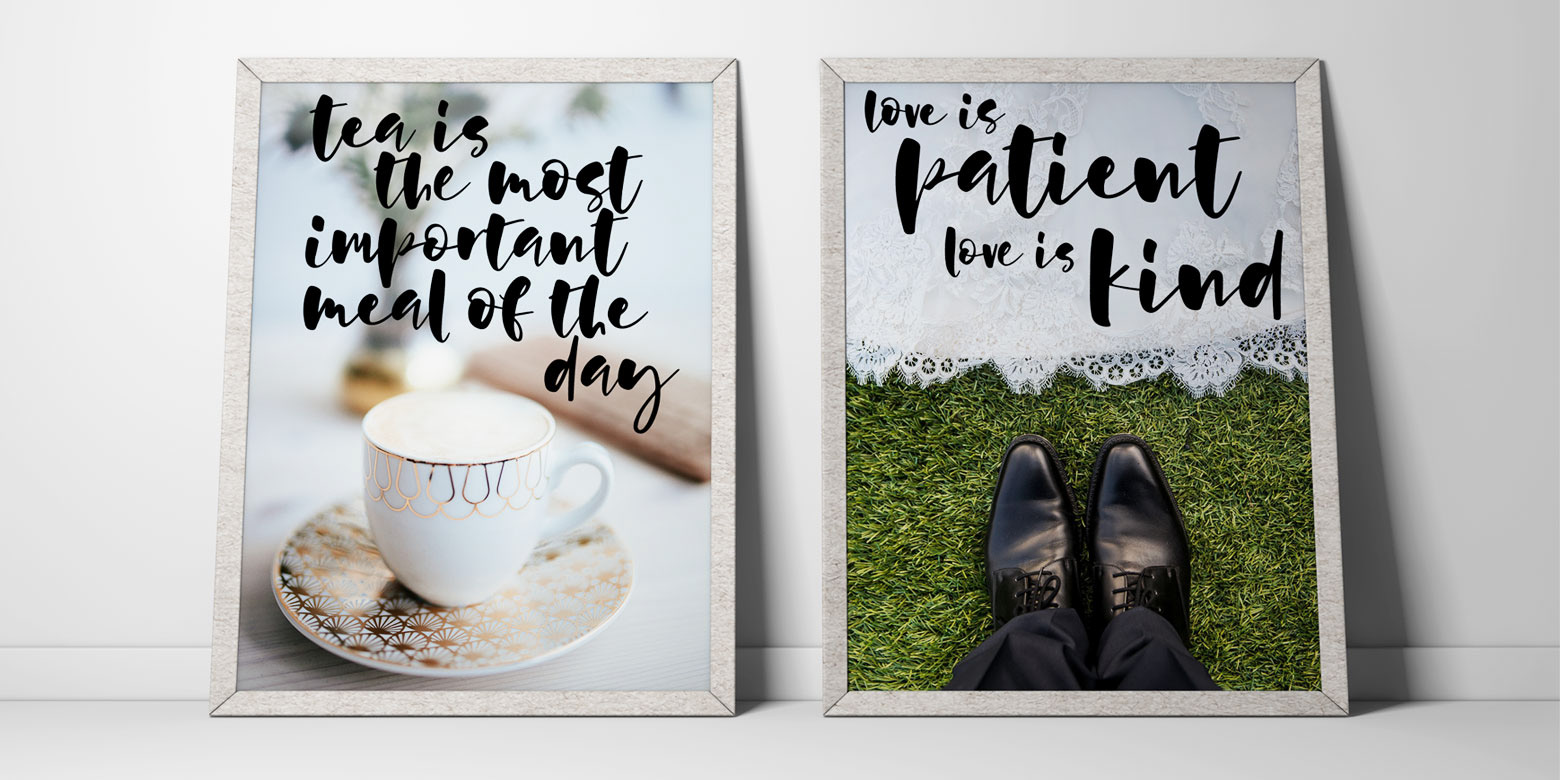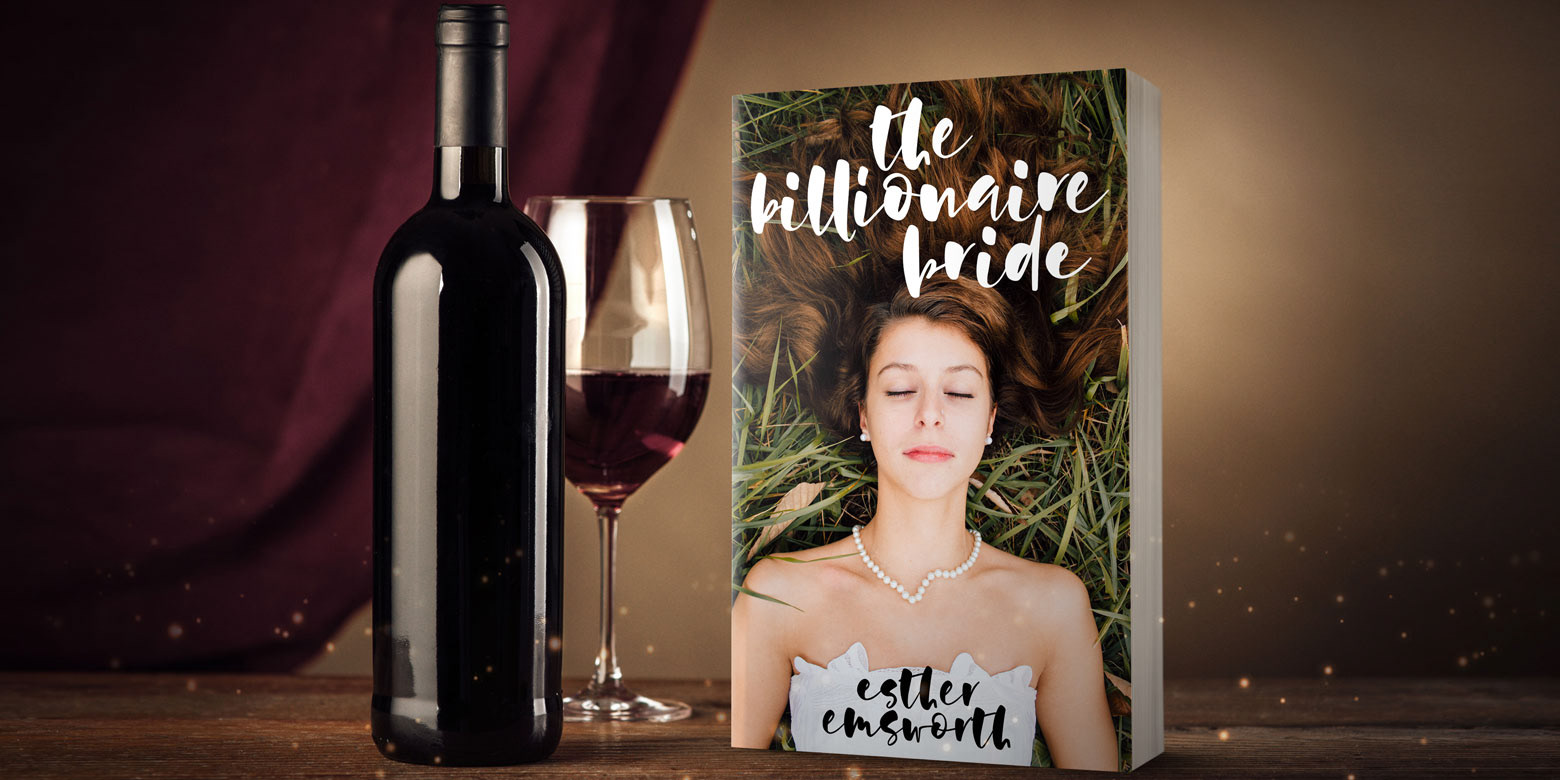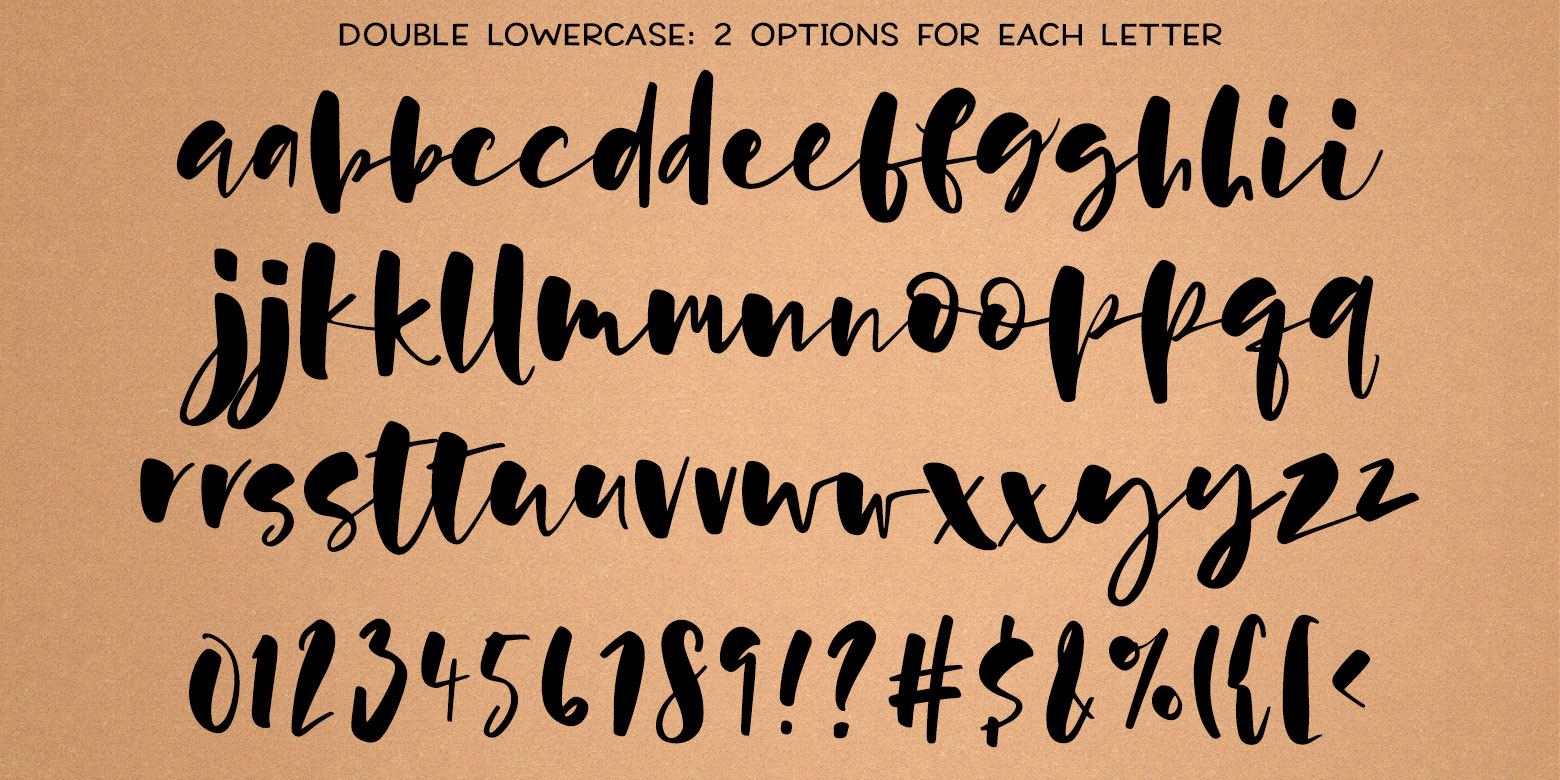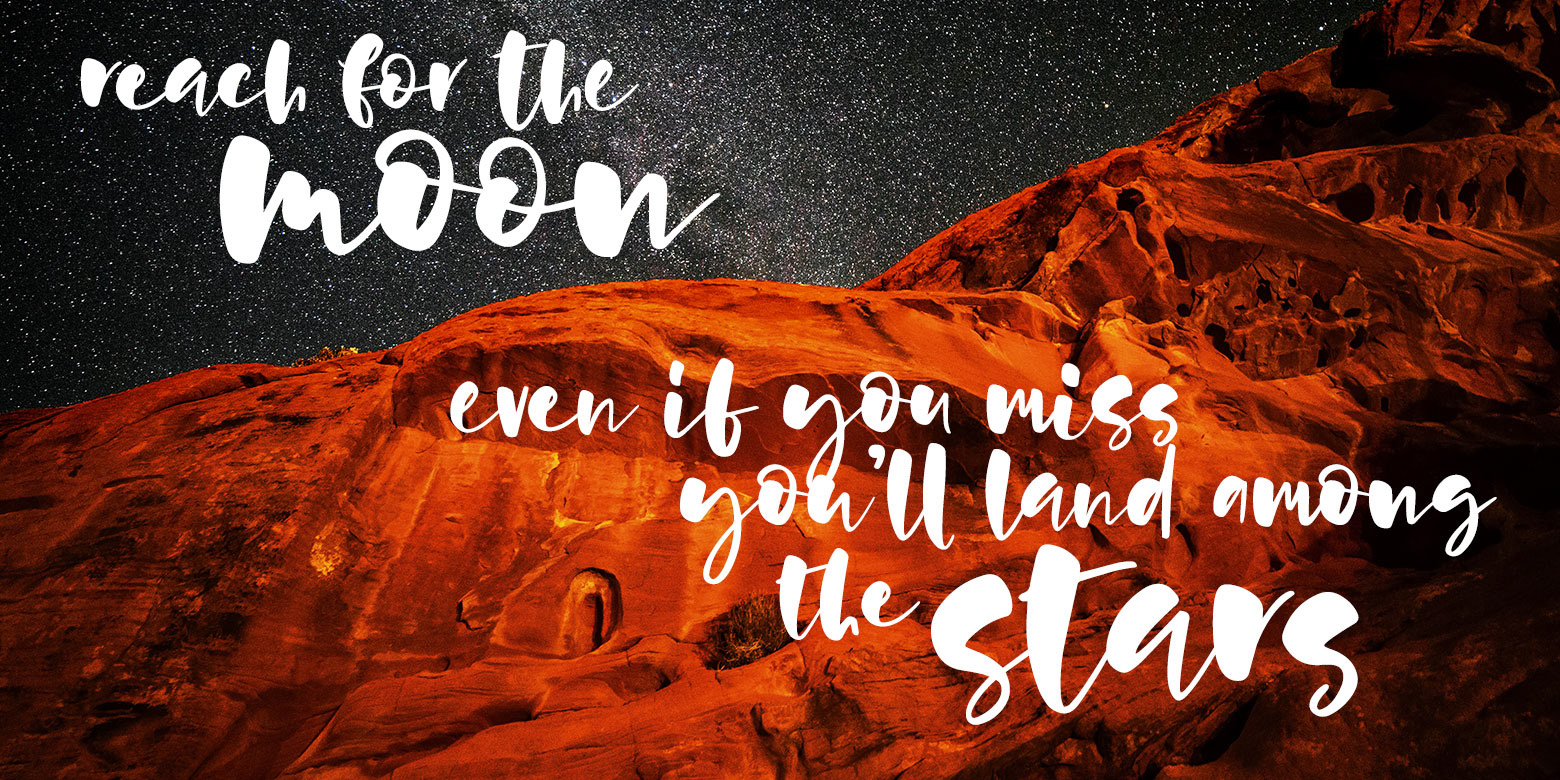
I do a lot of double-uppercase fonts, so for a change of pace, here’s a double-lowercase script font! Hallsey has one set of lowercase letters mapped to a-z, and then a full second set of lowercase letters mapped to A-Z. Mix them together for a hip, hand-lettered look!
The line weights on Hallsey are all over the place, from plump to super-thin, to add to the handmade look. Plus, it has smooth lines and edges for an easy crafting experience.
Hallsey also contains tons of punctuation, as well as almost 300 accented characters for language support (including English, French, Spanish, German, Polish, Romanian, Portuguese, Swedish, Finnish, Norwegian, Danish, Esperanto, Czech, Dutch, Welsh, Filipino, Turkish, and more!)
Hallsey includes:
– Two lowercase alphabets (no uppercase) for a hand-lettered look
– Numbers 0-9 and plenty of punctuation
– Almost 300 accented characters for language support